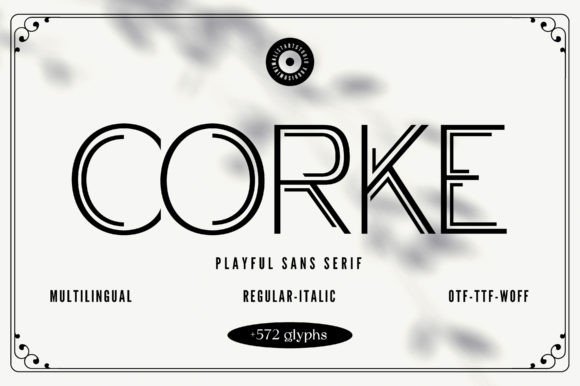
Looking for a font that's perfect for modern and minimalist designs? Look no further than Corke Font! Created by Minimalistartstudio, Corke Font is a clean and geometric sans serif grotesque font that offers a fresh and contemporary look to any project. With its crisp lines and angles, this font is the perfect choice for designers who want to create a sleek and sophisticated appearance.
Crafted with precision and attention to detail, Corke Font offers a minimalist design that's perfect for a wide range of applications. Whether you're working on branding and logos, web design, or editorial layouts, this font is versatile enough to meet all your needs. It features a full range of uppercase and lowercase characters, numbers, and punctuation marks, so you'll have all the tools you need to create stunning designs.
But what really sets Corke Font apart is its simplicity and elegance. This font is the ideal choice for designers who value clean and modern design. It's perfect for those who want to create designs that are both functional and beautiful, without being cluttered or overwhelming.
Whether you're designing a logo for a tech startup, creating a website for a fashion brand, or laying out a magazine spread, Corke Font is the perfect choice. With its eye-catching and captivating appearance, this font is sure to elevate your designs to the next level. So why wait? Try Corke Font today and start creating designs that are as beautiful as they are functional.